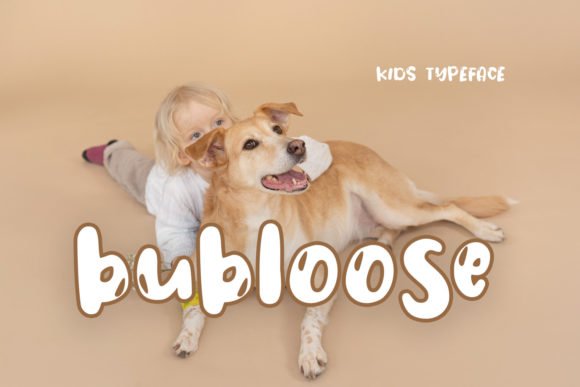
Discovering the Perfect Font for Playful Projects
Who among us hasn’t experienced that magical moment when a spark of creativity hits, and our imagination runs wild? It’s the moment when a font, a color, or a design element comes together to transport us to a world of limitless possibilities. For designers and creatives, this moment is what drives us to craft engaging content that resonates with our audience. And for those working on children’s projects, the right font can make all the difference in bringing a design to life.
Enter the Bubloose Font, a delightful display font that embodies the essence of playfulness and authenticity. With its cool, bubbly, and sweet design, Bubloose Font is the perfect choice for any children’s activity or school project that requires a touch of whimsy and fun. As a valuable asset for designers, Bubloose Font offers a unique opportunity to infuse projects with a sense of joy and approachability that’s hard to find in more serious or formal fonts.
Bubloose Font Key Features
- Unique Characteristics: The Bubloose Font features a unique blend of bubbly and loose letterforms, creating a playful and approachable feel.
Bubloose Font Review
I’ve had the chance to play around with the Bubloose Font, and I’m here to give you the lowdown. Overall, I think it’s a solid addition to any designer’s toolkit. ✨ Here’s what I love about it:
- Unique style: Bubloose Font has a quirky, whimsical feel that’s perfect for adding some personality to your designs.
- Good legibility: Despite its playful nature, the font is surprisingly easy to read, even at smaller sizes.
- Customization options: The font offers a range of styles and weights, giving you plenty of flexibility to tailor it to your needs.
However, there are a few limitations to keep in mind: ⚠️
- Limited language support: Bubloose Font may not be optimized for certain languages or character sets, which could lead to display issues.
- Not suitable for large blocks of text: While it’s great for headlines and short paragraphs, Bubloose Font can start to feel overwhelming when used for extended passages of text.
Overall, I think the Bubloose Font is a fun and versatile choice for designers looking to add some flair to their work. Just be mindful of its limitations, and you’ll be good to go!
Tips for Getting the Most Out of Bubloose Font
Use Bubloose font for creative and playful designs, such as social media posts, party invitations, and children’s materials.
Combine Bubloose font with other playful fonts or graphics to create a visually appealing design.